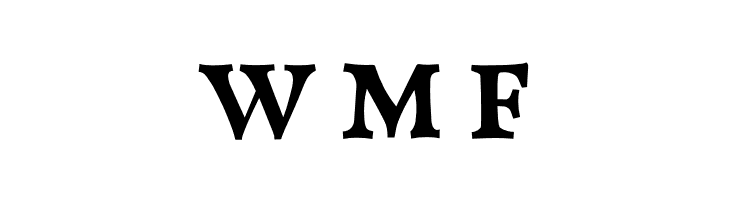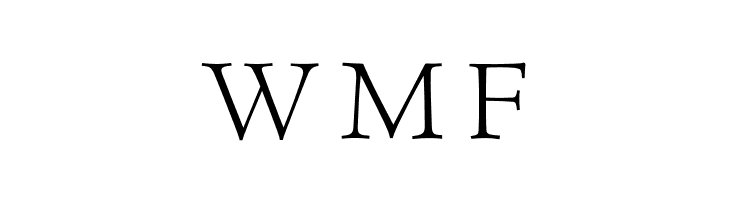
• Coelacanth Pearl Light
A classic serif font with elegant, slightly flared serifs and a modern touch.
• Coelacanth Display
A classic serif font with high contrast and elegant, sharp serifs.
• Coelacanth Heavy
A bold, high-contrast serif font with dramatic and elegant features.
• Coelacanth Bold
A bold serif font with elegant curves and strong strokes.
• Coelacanth Caption Heavy
A bold, serif font with uneven strokes and a strong, traditional presence.
• Coelacanth ExtraLight
A classic serif font with elegant, elongated strokes and refined details.
• Coelacanth Subheading Light
A classic serif font with elegant, thin strokes and a sophisticated appearance.
• Coelacanth Display Heavy
A bold, high-contrast serif font with dramatic and angular serifs.
• Coelacanth Semibold
A classic serif font with an artistic, hand-crafted appearance.
• Coelacanth Light
A classic serif font with a light, elegant style and refined details.